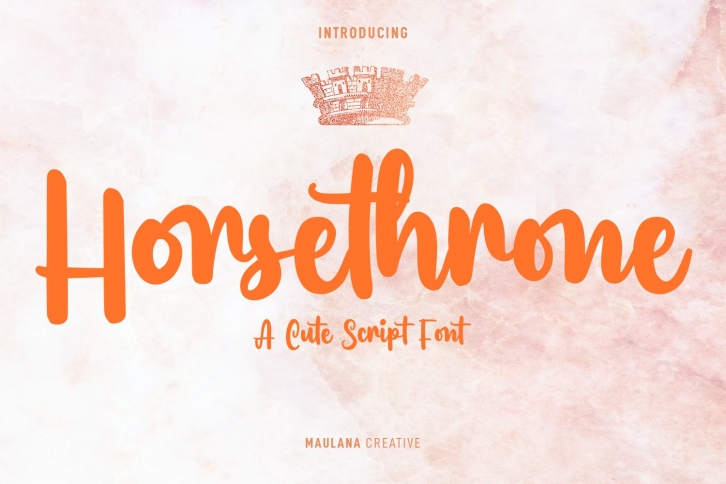
Horsethrone Handwritten Script is a great font that was designed by Maulana Creative. Imagine the amount of combinations you can create using this font! The archive is 12.24 MB and it was released on March 24, 2022. Horsethrone Handwritten Script looks beautiful on wedding invitations, greeting cards, logos, posters, labels, t-shirt designs, logos, business cards and is perfect for use in ink or watercolor works, fashion, magazines, packaging and food menus, children's books and more!